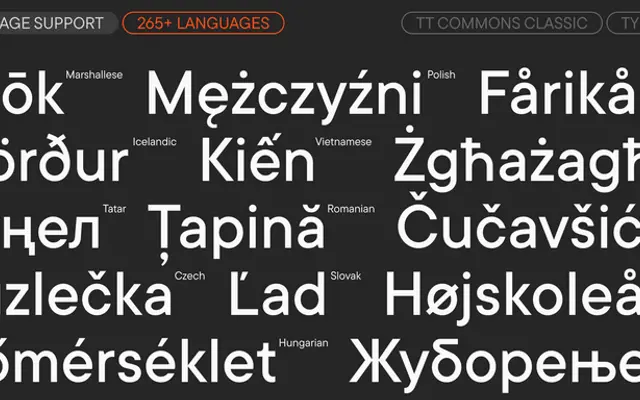
TT Commons™ Classic
Originally TypeType's internal corporate font, this geometric sans has grown into a 21-style commercial family with broad Cyrillic and Latin coverage and extensive OpenType features.
Minimal stroke contrast, a closed aperture and averaged letter construction make it well-suited to long text settings, while the individually tuned glyphs hold up at display sizes. The family ships with a variable font and includes stylistic alternates for single-storey 'a', alternative 'l', bowl-shaped 'y' and localisation sets for Serbian, Bashkir and Chuvash. It has found wide adoption in SaaS, logistics and education branding, most notably as the basis for Pluralsight's custom typeface.
Geometric forms, minimal stroke contrast and a closed aperture place this firmly in the geometric sans tradition, designed for neutral, universal application across text and display sizes.